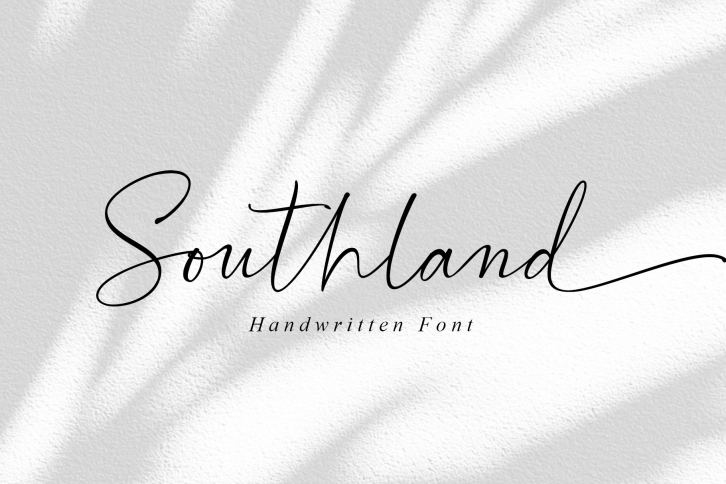
Southland is a handmade calligraphy font that is made with a touch of love in every character. This font is perfect for logos, branding, business cards, watermarks, posters and more.
Southland comes with a full set of Uppercase, Lowercase numeral and punctuation, and multilingual support.